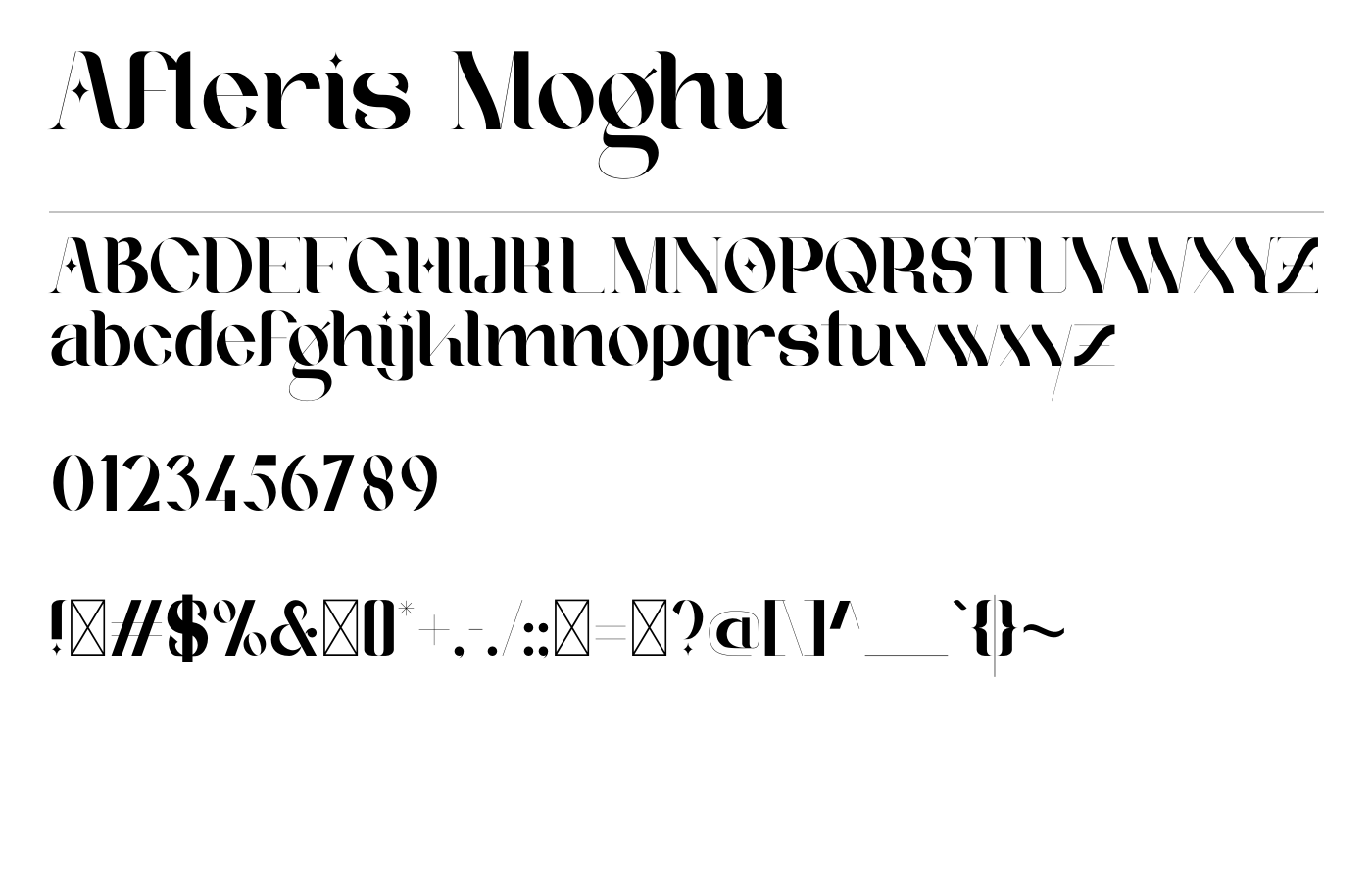
Afteris Moghu is an elegant serif font with a striking modern Didone style, featuring high contrast between thick and thin strokes and sharp, geometric serifs. Its unique letterforms, including stylized diamond shapes and distinctive curves, give it a luxurious, artistic feel perfect for high-end branding, fashion, or editorial headlines where a bold, sophisticated statement is desired. This font works best in display settings, offering eye-catching flair and refined personality.
Afteris Moghu Font
About Afteris Moghu Font